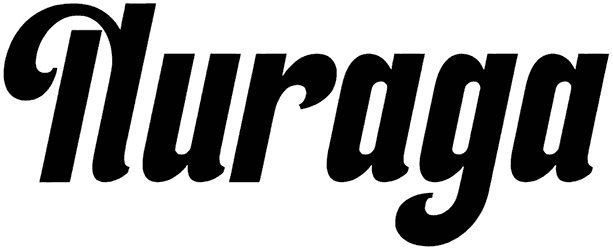
Nuraga Font
Nuraga is a nostalgic and historical font that falls into the category of retro fonts. This font with bold letters can give a retro touch to your writing and add a strong, confident, and dynamic mood to your creative des…
Nuraga is a nostalgic and historical font that falls into the category of retro fonts. This font with bold letters can give a retro touch to your writing and add a strong, confident, and dynamic mood to your creative designs. So, if you are looking for a font to make sense of 1960s writings in your logos, brochures, and posters, do not sleep on this creative font.